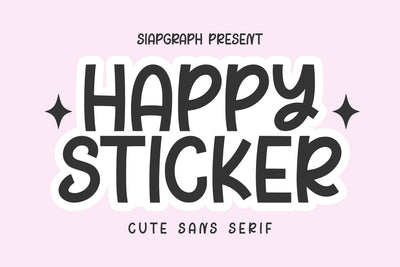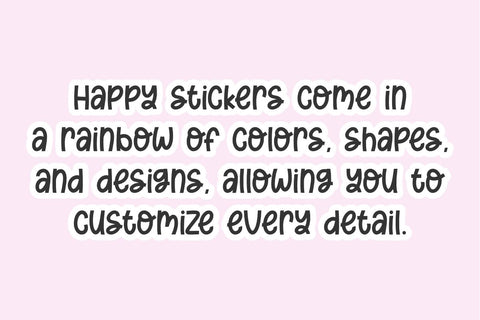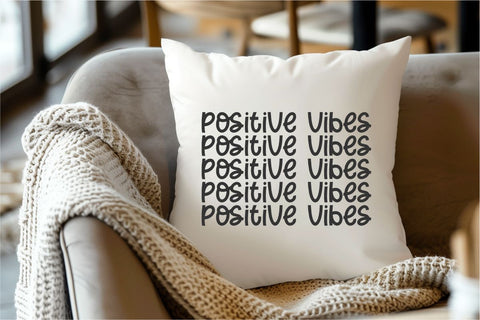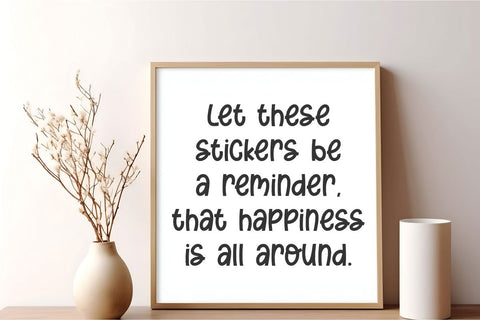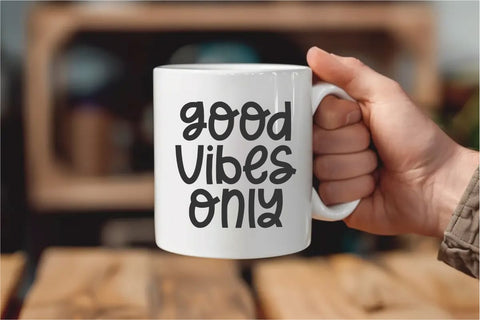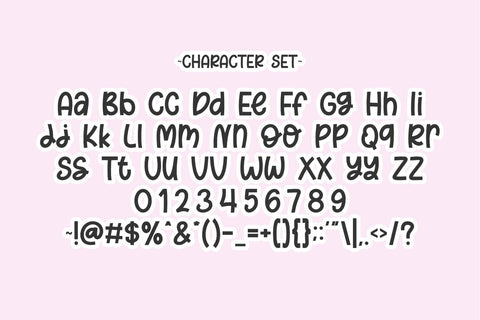
Happy Sticker - Cute Kids Font
Happy Sticker is a fun and cute sans-serif font with a playful and hand-drawn look. Its rounded edges and slightly irregular letterforms make it perfect for sticker designs, kids' projects, posters, greeting cards, branding, product packaging, social media, and more. Whether you're working on a cheerful craft or a kawaii-themed design, Happy Sticker brings a joyful and charming touch to your creations.